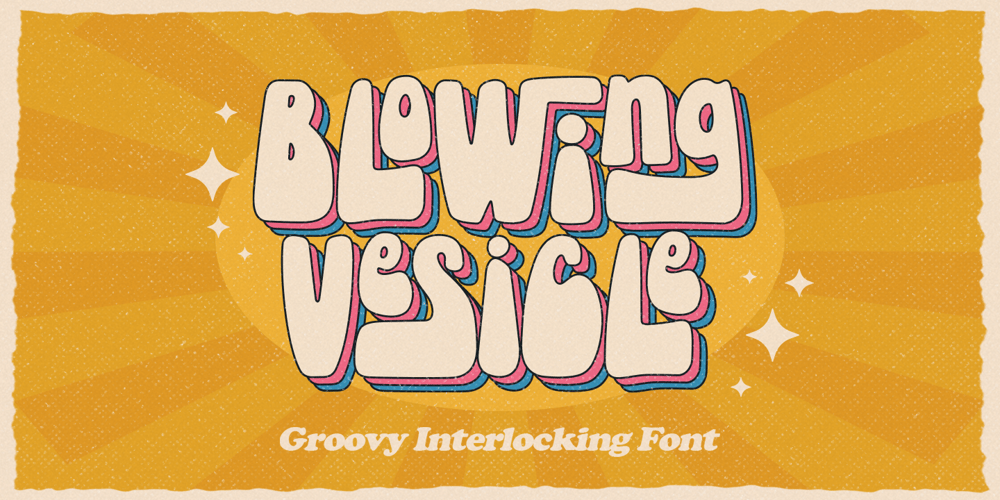
Blowing Vesicle
Blowing Vesicle font
Blowing Vesicle Font Family was designed by Hendry Juanda and published by Letterhend. Blowing Vesicle contains 1 styles and family package options. Blowing Vesicle is a retro bold font which will bring you back to 60s feel. This font perfectly made to be applied especially in logo, and the other various formal forms such as invitations, labels, logos, magazines, books, greeting / wedding cards, packaging, fashion, make up, stationery, novels, labels or any type of advertising purpose.Features : uppercase & lowercase numbers and punctuation multilingual ligatures alternates swashes PUA encoded We highly recommend using a program that supports OpenType features and Glyphs panels like many of Adobe apps and Corel Draw, so you can see and access all Glyph variations.